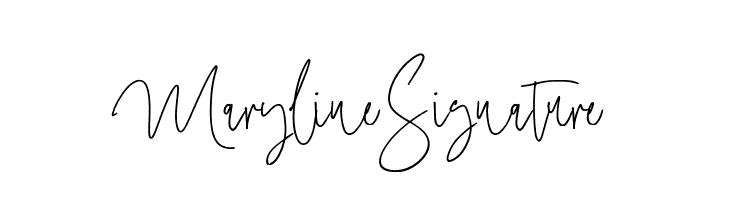
A cursive, handwritten font with elegant and flowing strokes.
An elegant script font with flowing, cursive letterforms and delicate flourishes.
A sophisticated script font with elegant, flowing letterforms.